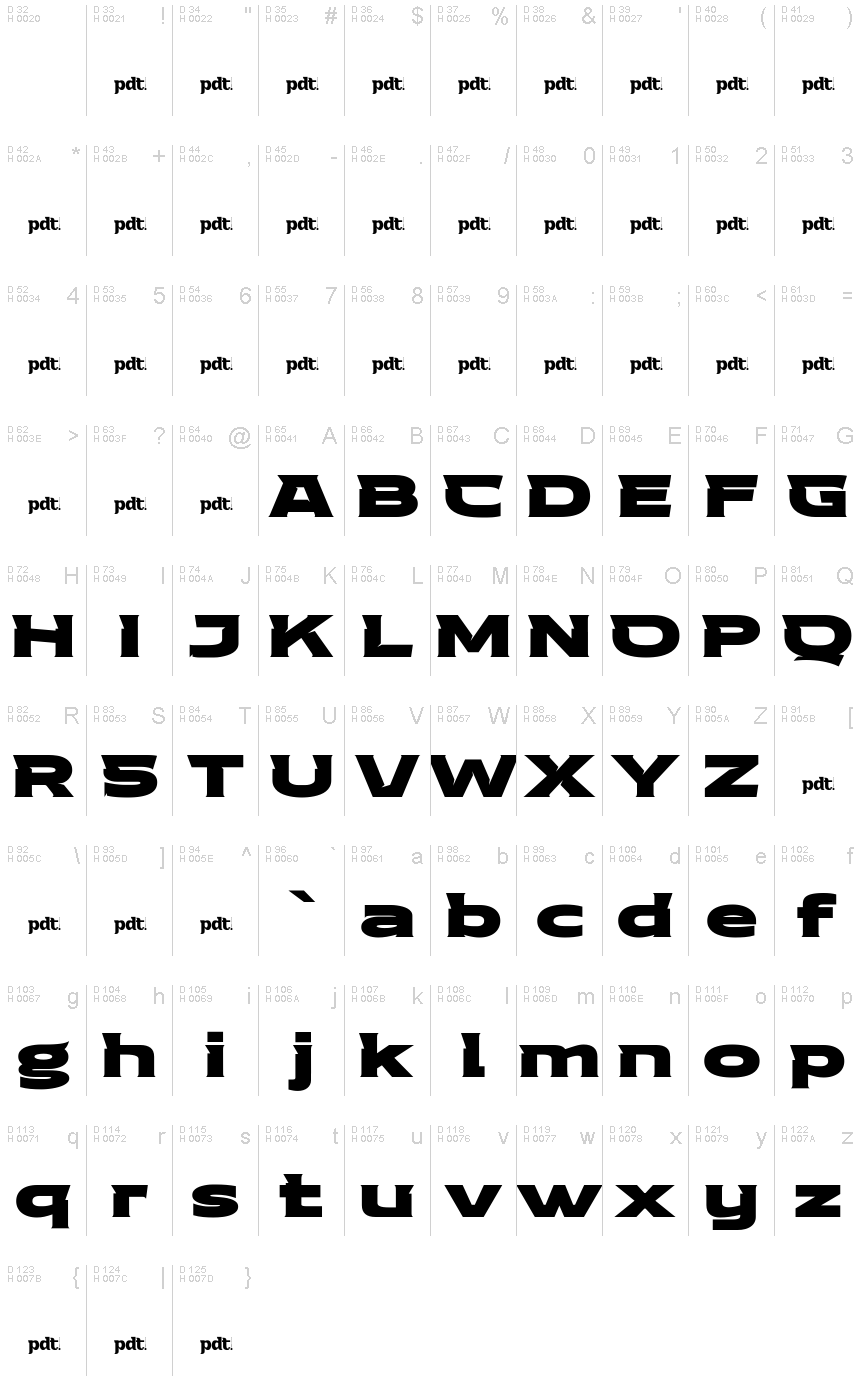
REDOB Serif
Redob Serif font, part of the Redob family by productype, commands attention with its bold and expanded appearance. Its dynamic strokes and distinct serif detailing create a captivating visual presence that effortlessly merges traditional elegance with modern flair.
This free font is perfect for designers seeking to make a powerful statement, whether in headlines, logos, or branding materials. Ideal for projects requiring readability and impact, Redob Serif stands as an excellent choice for both digital and print applications.